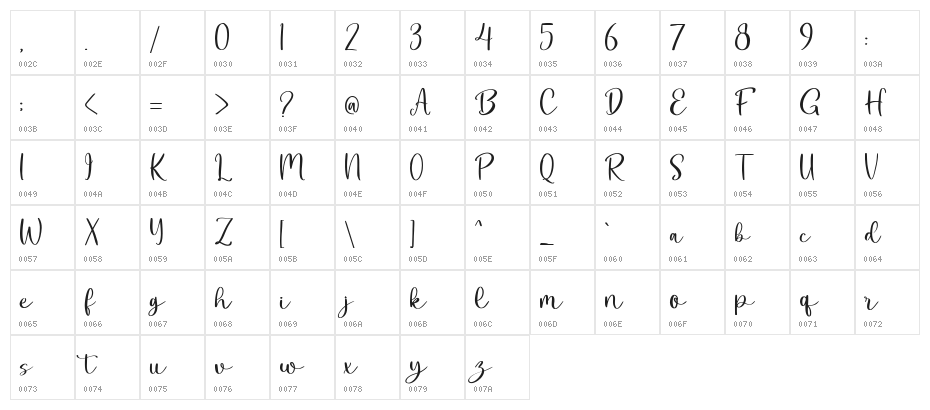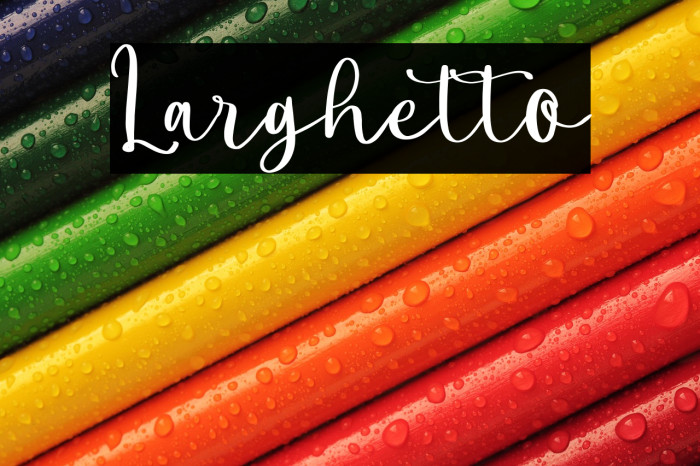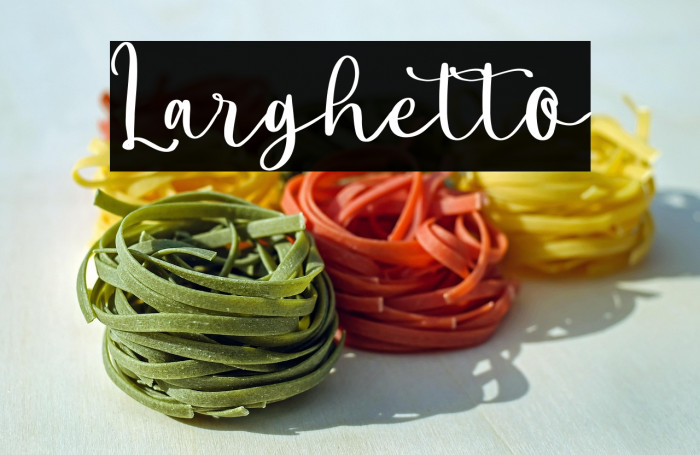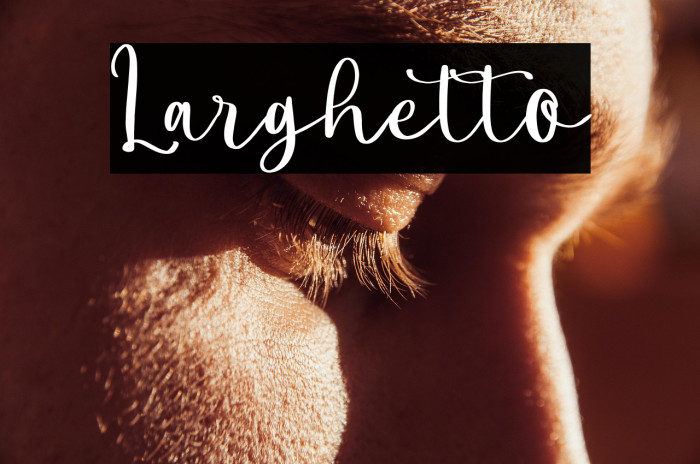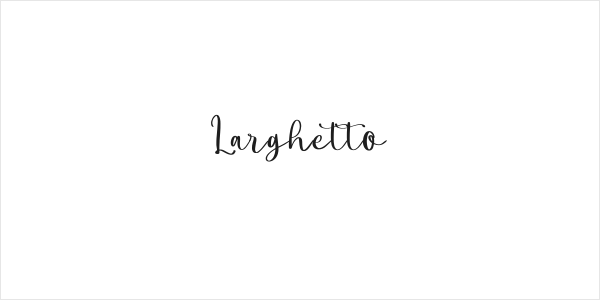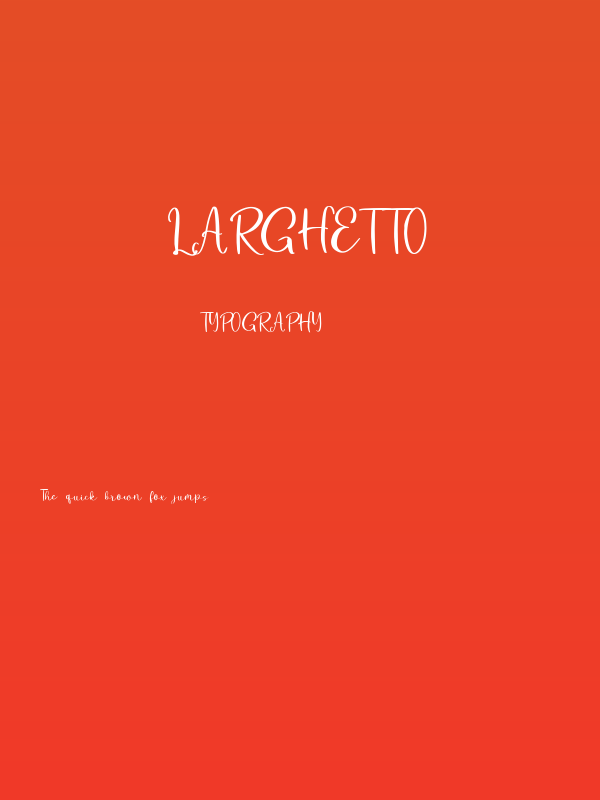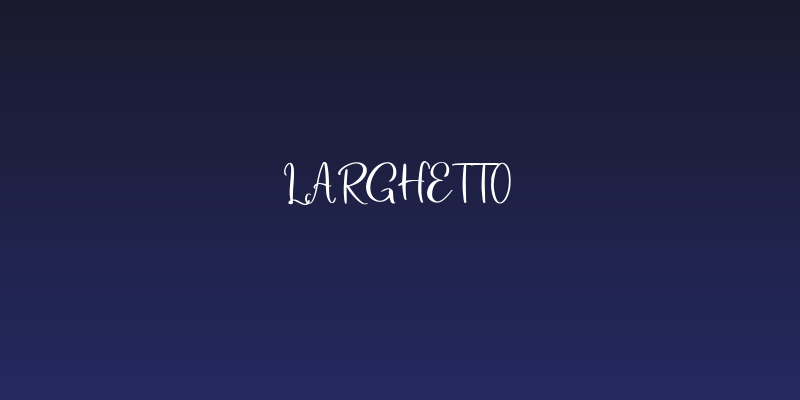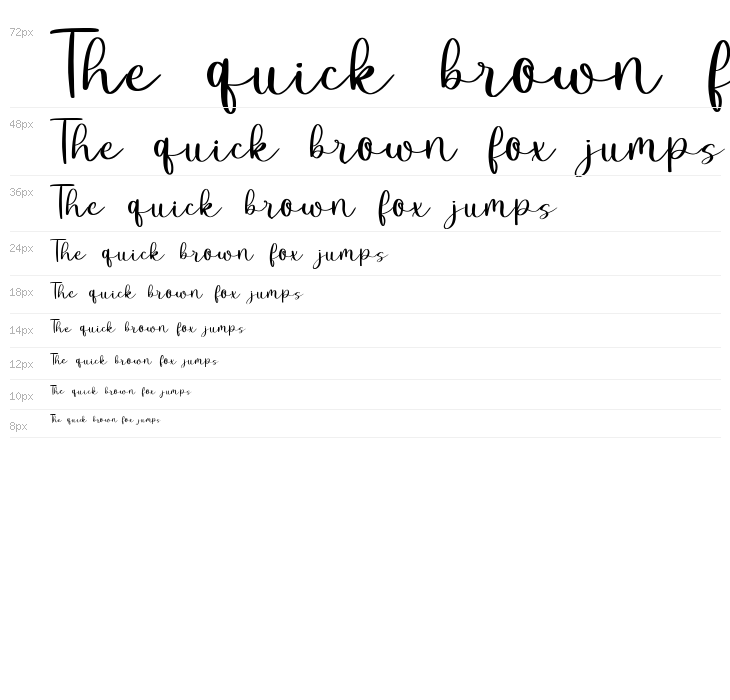
Larghetto Font
Larghetto Description
This font features an elegant and flowing script style, characterized by its smooth, cursive strokes and graceful curves. The uppercase letters are bold and expressive, while the lowercase letters maintain a consistent fluidity, enhancing readability. The numerals are distinct and complement the overall script style. Special characters are thoughtfully integrated, maintaining the font's cohesive appearance. This font exudes a sense of sophistication and charm, making it suitable for a variety of creative applications.
| Proposed Projects | Ideal for wedding invitations, greeting cards, branding, and elegant packaging designs. |